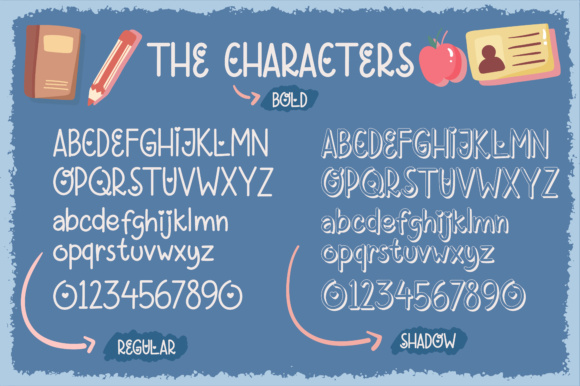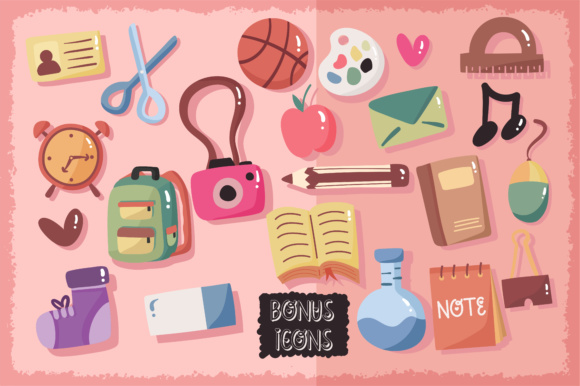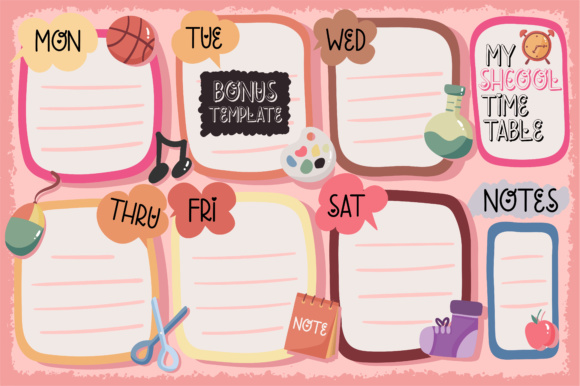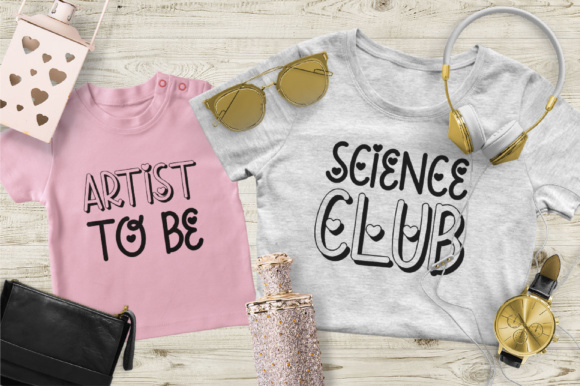
Ericlaire Font
About Ericlaire Font
Meet Ericlaire, a cute typeface with 3 different styles: regular, bold and shadow. Ericlaire also comes with icons and a time table template as bonus. Ericlaire is perfect for school theme related design for kids, teenager and more